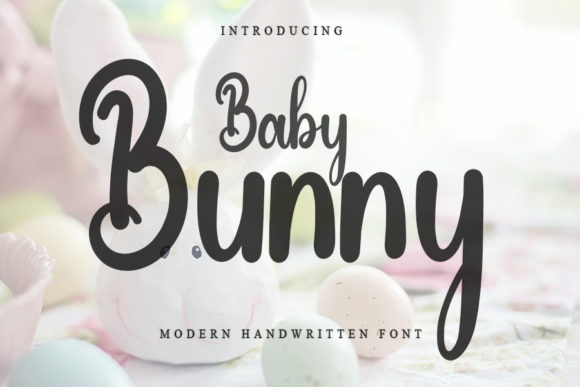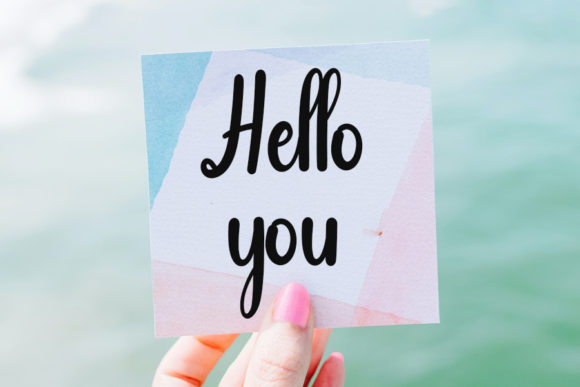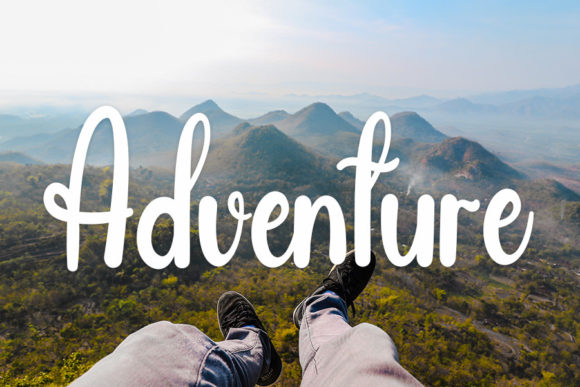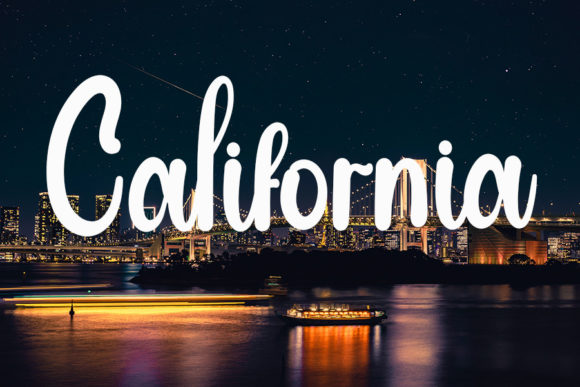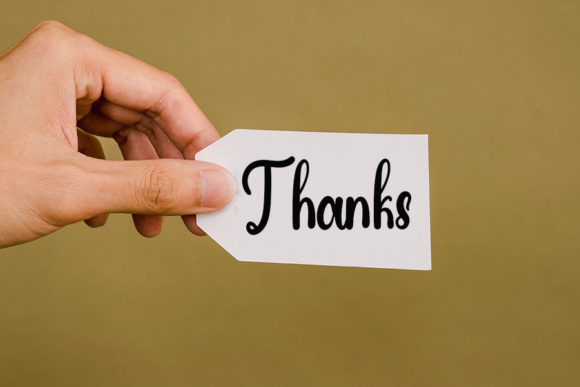
Baby Bunny Font
About Baby Bunny Font
Baby Bunny is a delightful handwritten font, intricately crafted to secure its position as an instant favorite. More than just a typeface, it encapsulates a thoughtful design that preserves its classy calligraphic influences while radiating a contemporary and fresh feel. This font strikes a harmonious balance between timeless elegance and modern charm, making it a versatile and endearing choice for a diverse array of design projects.
At its core, Baby Bunny exudes a friendly and approachable vibe. Each stroke, meticulously designed, carries a sense of warmth, making it an ideal choice for projects that seek to establish a personal connection with the audience. The handwritten style imparts an intimate touch, encouraging users to engage with the text on a more profound level.
The calligraphic influences in Baby Bunny contribute to its overall sophistication. Every curve and line is thoughtfully crafted, enhancing the font’s visual appeal. This infusion of classic calligraphy elevates the font’s versatility, allowing it to seamlessly adapt to various design contexts while retaining its inherent charm.
What sets Baby Bunny apart is its ability to feel both familiar and contemporary. While paying homage to classic calligraphy, it introduces a fresh and modern twist, breathing new life into the handwritten genre. This makes Baby Bunny well-suited for a range of applications, from casual and friendly branding to more formal occasions such as invitations or stationery.
Baby Bunny is more than just a font; it’s an experience. It embodies the warmth of a handwritten note and adds an inviting touch to design projects. Its versatility shines through in its adaptability to different creative endeavors, making Baby Bunny a reliable and cherished companion for designers across various industries.
In conclusion, Baby Bunny is not just a typeface; it’s a friendly handwritten font meticulously designed to be a true favorite. Its careful balance between classy calligraphic influences and a contemporary, fresh feel makes it a versatile choice for a variety of design projects, infusing a sense of timeless elegance and modern charm.